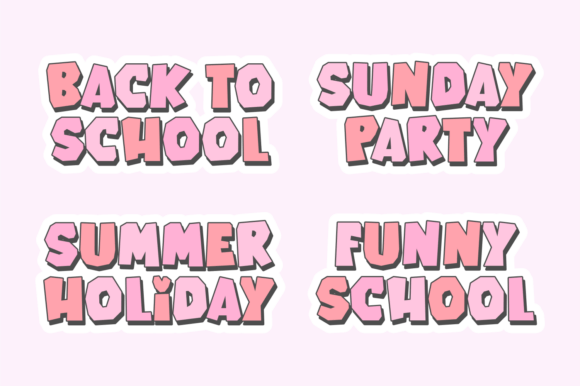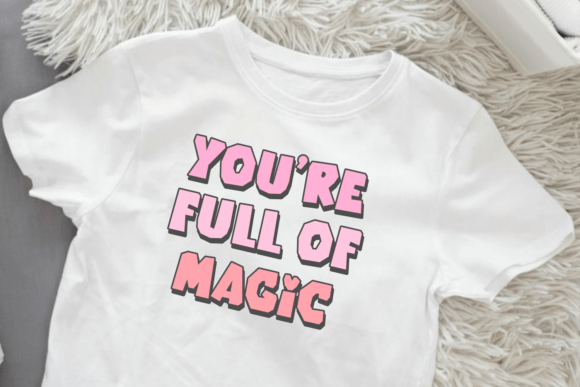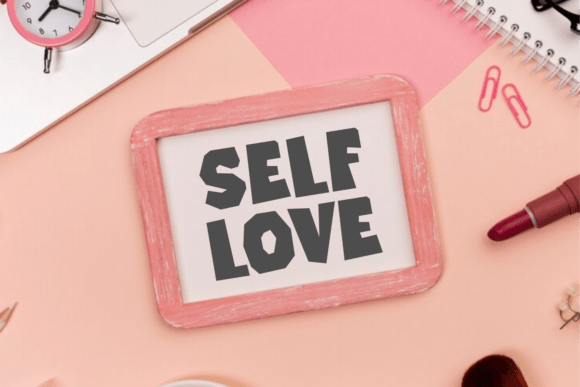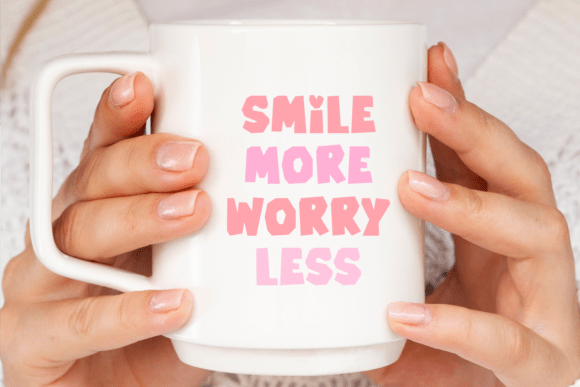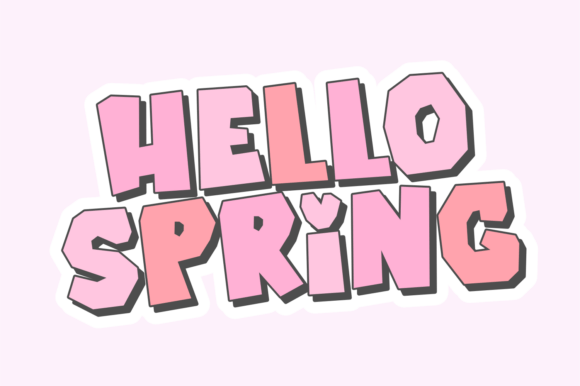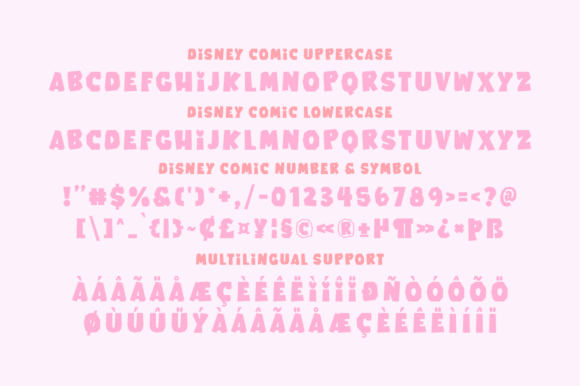
Introduction to Disney Comic Font
Have you ever stumbled upon a design that immediately puts a smile on your face? For many creatives, that moment of inspiration can spark a new project, a fresh idea, or even an entire world of possibilities. For us, that moment came when we discovered the enchanting Disney Comic Font. This whimsical display typeface has captured the hearts of designers worldwide, and for good reason – it’s a game-changer.
Whether you’re working on a high-quality design project or seeking a free download to elevate your creative endeavor, the Disney Comic Font is an invaluable resource. With its transparent background and versatile design, it’s the perfect addition to any project, from greeting cards to t-shirt designs. Its effervescent charisma is contagious, making it an ideal choice for designers looking to infuse their work with a dash of joy and whimsy.
Disney Comic Font
- High-quality, hand-drawn design ideal for creative projects, offering a unique and playful touch.
- Transparent background, allowing for easy customization and versatility in design applications.
- Font size: 1,024 glyphs, covering a wide range of characters and languages.
- Resolution: Optimized for high-resolution displays, making it suitable for print and digital applications.
- Unique characteristics include its whimsical and expressive style, reminiscent of classic Disney comics and illustrations.
Honest Review: Disney Comic Font
As a designer, I’m always on the lookout for high-quality fonts that can elevate my creative projects. The Disney Comic Font caught my eye, and I decided to give it a try. Here’s my honest review.
- Unique and playful style that’s perfect for children’s books, cartoons, and comics.
- High-quality design that’s crisp and clear, making it suitable for digital use.
- Transparent background option allows for easy use on various backgrounds.
- May not be suitable for formal or professional projects due to its playful nature.
- Limited character set and language support.
Overall, the Disney Comic Font is a great design resource for designers working on creative projects that require a playful and whimsical touch. While it may have some limitations, its unique style and high-quality design make it a valuable addition to any designer’s toolkit.
Use the Disney Comic Font in conjunction with other design elements, such as images and graphics, to create a visually appealing and engaging design. Experiment with different font sizes, colors, and styles to find the perfect combination for your creative project. Use the free download of the Disney Comic Font to create a unique and eye-catching design.
The Disney Comic Font is a popular design resource for a variety of creative projects, including cartoons, comics, and graphic novels. It’s also commonly used for children’s book illustrations and educational materials. Use the font to add a touch of whimsy and fun to your design, and to create a high-quality and engaging visual experience for your audience.
Alternatives to Disney Comic Font
Comic Sans MS is a popular font that was initially designed for use on Windows systems. It’s a good choice for creating a playful and casual look, making it suitable for creative projects, newsletters, and children’s content. However, it may not be as versatile as other fonts and can appear unprofessional in certain contexts. When to use: Casual, playful, and creative projects. Compared to Disney Comic Font: Comic Sans MS has a more rounded and informal look, while Disney Comic Font has a more stylized and hand-drawn appearance.